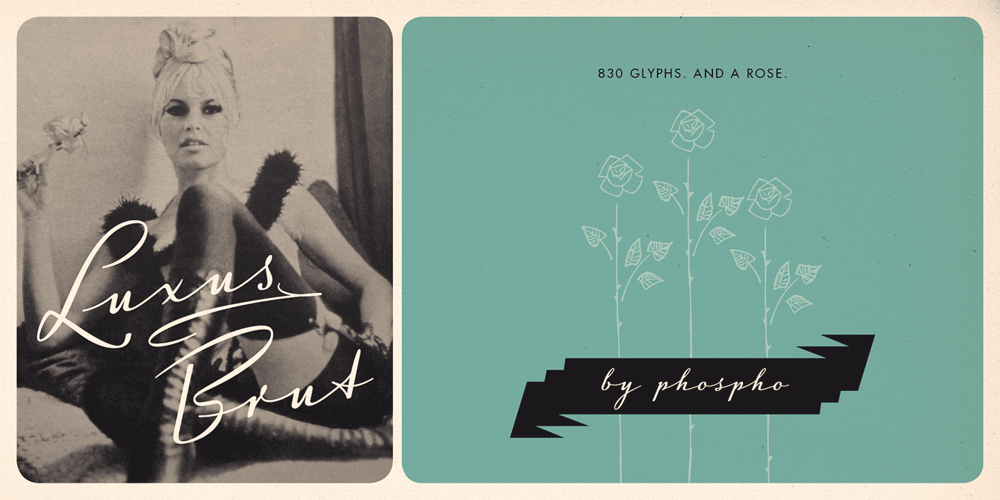
Luxus Brut Font Family was designed by Roland Hörmann and published by phospho. Luxus Brut contains 1 styles and family package options. Luxus Brut breathes the spirit of hand lettered signage of the Fifties. It’s a formal script, inspired from a well concealed shop portal in Vienna/Austria. Large and distinctive capital letters, wide spacing as well as a low x-height make it an excellent choice for posters, magazine headlines, logotypes, branding and any design that requires a touch of luxury and sensuality. You might also have a look at the stylistically related Luxus Brut Sparkling.